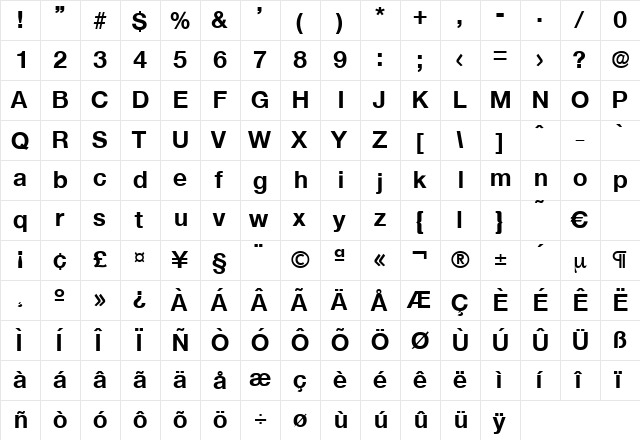
Olnova-Bold Regular
Design Context for Olnova-Bold Typeface
Olnova-Bold takes a measured approach to typography — its balanced proportions and neutral character make it a reliable workhorse for both digital and print work. Its bold stroke weight gives it real presence on the page.